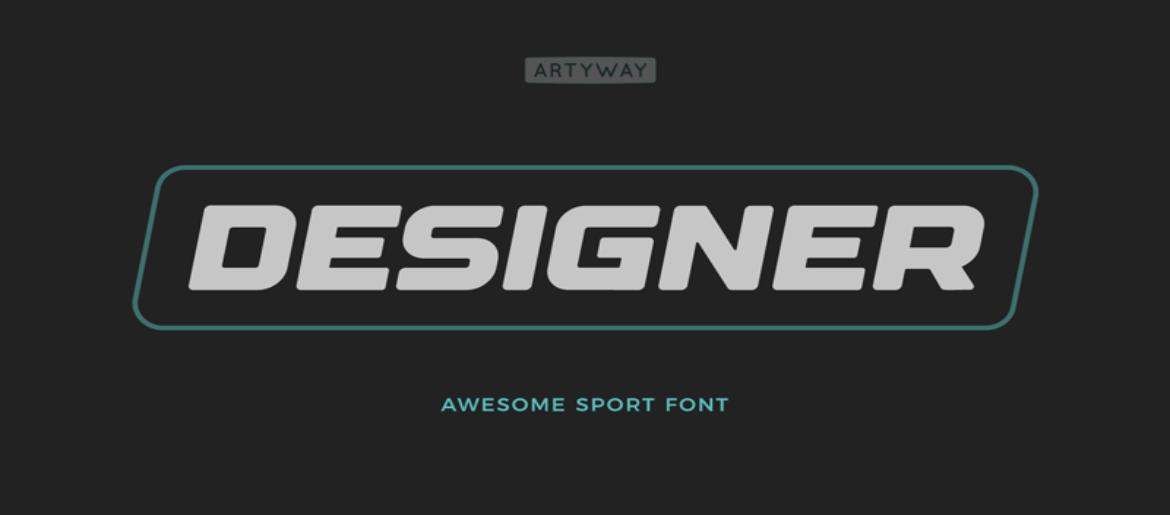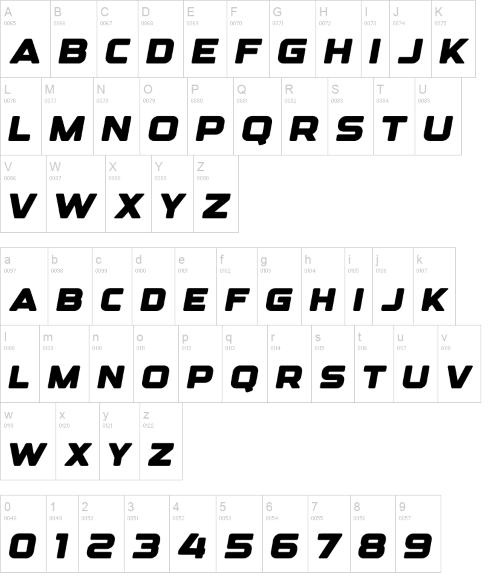
Designer Font
Designer Font by Artyway is a sleek, modern display typeface crafted for bold, stylish branding. With its clean lines, elegant shapes, and contemporary aesthetic, it brings a premium, fashion-forward feel to logos, packaging, posters, and digital visuals. Designer adds sophistication and polished artistry to any project needing a high-end, expressive touch.
Font Name:  Designer
Designer: Artyway
Style: Sans serif